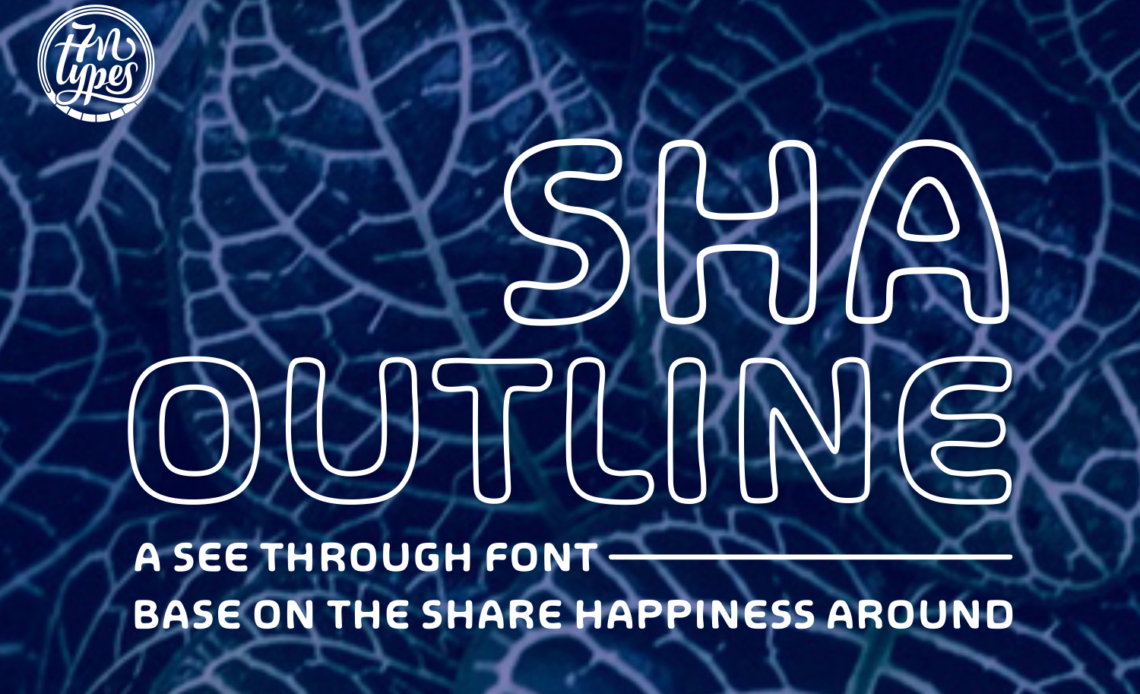
Welcome to the delightful world of SHA Outline Font, an exquisite sans serif font family that radiates charm and embraces individuality. Crafted by the talented Situjuh, this font duo, comprising Regular and Italic, exudes a playful and friendly character.
SHA Outline Font: A captivating visual feast that dances effortlessly across your screens, wrapping your words in a warm and inviting embrace. Rounded letters, like soft whispers of joy, bring a sense of harmony and playfulness to your designs. Let your creativity flourish, for this font is a boundless playground where imagination knows no limits.
Whether you seek to create eye-catching logos, captivating flyers, or heartfelt invitations, SHA Outline Font is your trusty companion. Its exceptional legibility ensures that your message shines brightly, reaching your audience with clarity and impact. From playful social media posts to elegant wedding invitations, this versatile font family effortlessly adapts to your creative vision.
With SHA Outline Font, let your designs emanate happiness and warmth. Embrace the boundless possibilities of this versatile font duo and watch your projects blossom into masterpieces. Discover the joy of sharing happiness around, one letter at a time. Dare to stand out and make a statement with SHA Outline Font!